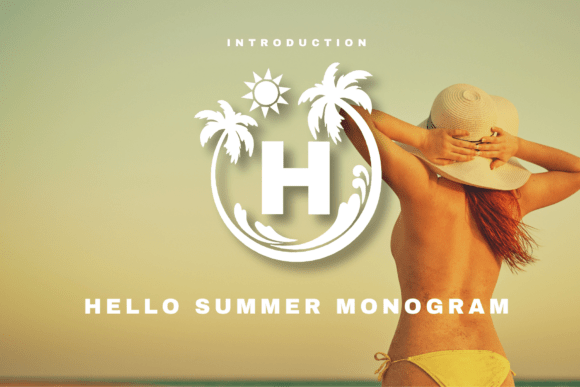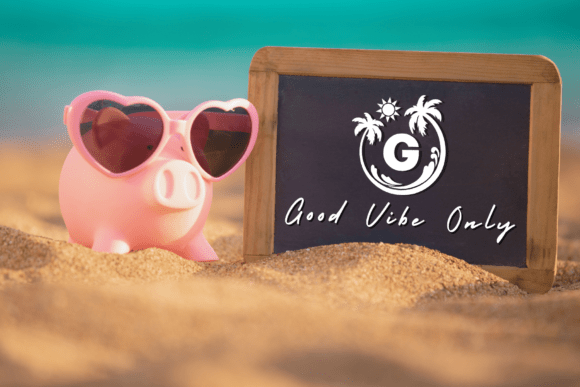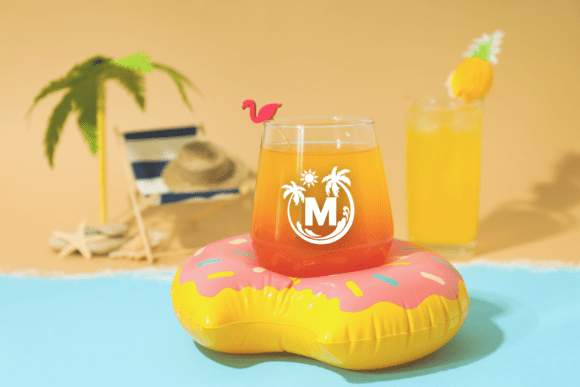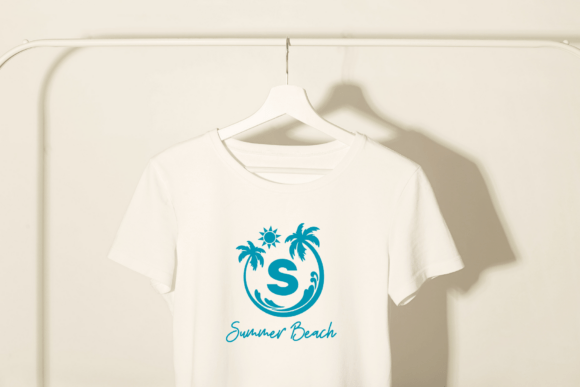
Hello Summer Monogram Font
About the Hello Summer Monogram Font
The Hello Summer Monogram Font offers a perfect balance of form and function for your design needs. Hello Summer Monogram is a versatile and authentic decorative font. You can use these monograms on gift tags, cards, pillows, invitations, wall art, t-shirts, mugs and anything else you can think of.
Its playful, slightly retro style makes it ideal for branding projects aimed at a young, vibrant audience, particularly those in the fashion, food, or lifestyle sectors. It excels in headlines, logos, and short, impactful text on packaging or social media graphics. However, its decorative nature makes it unsuitable for body text or lengthy paragraphs; readability suffers at smaller sizes.
Consider pairing Hello Summer Monogram with a clean sans-serif like Open Sans for body copy to create contrast and improve legibility. Alternatively, a classic serif like Playfair Display could add a touch of sophistication for a more refined feel. Avoid pairing it with other highly decorative fonts, as this would result in visual clutter.
The font’s overall personality is cheerful and approachable, conveying a sense of summery fun and effortless style. This makes it a strong choice for projects needing a lighthearted, optimistic tone.
Hello Summer Monogram Font Usage Examples
Hello Summer Monogram Font Example